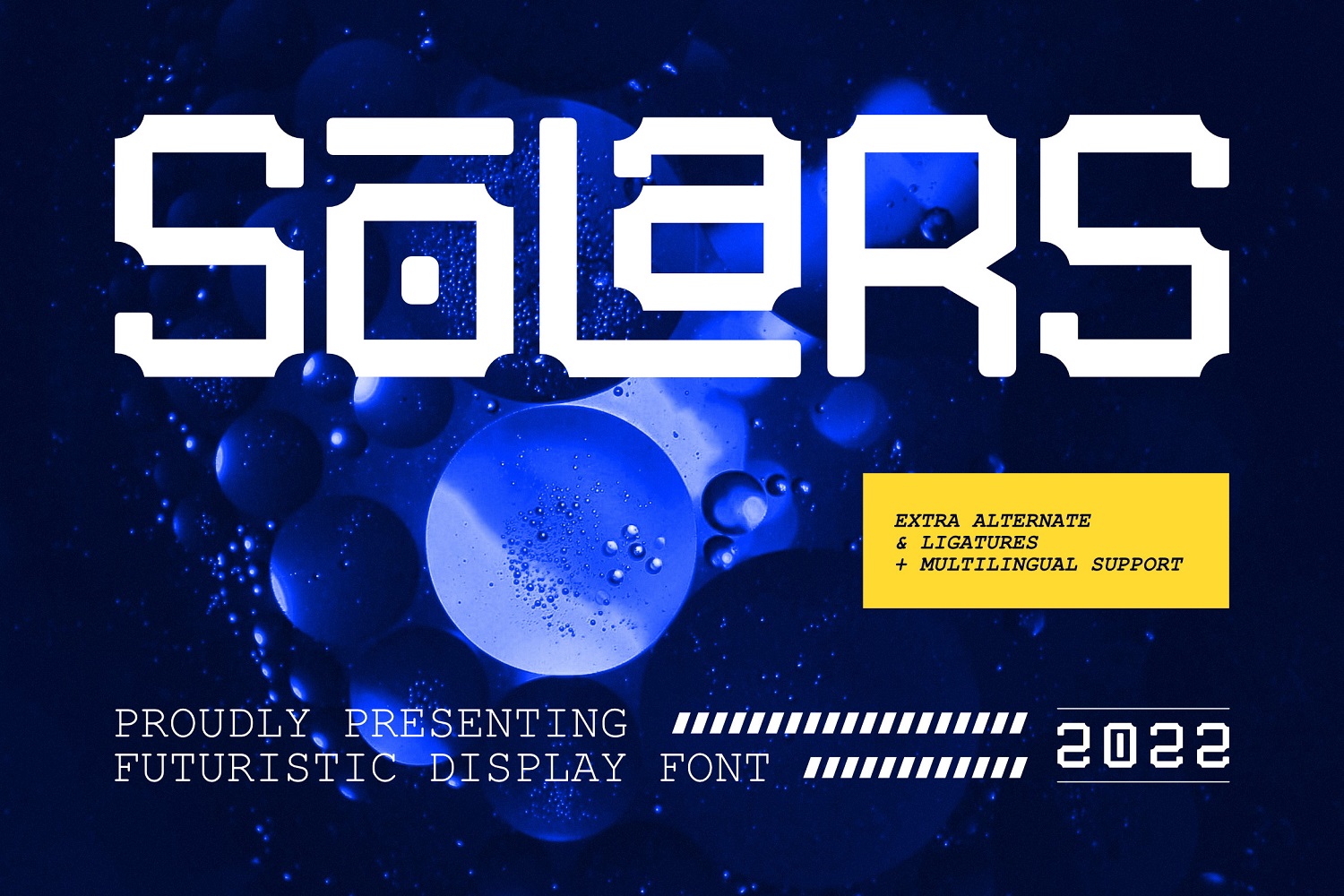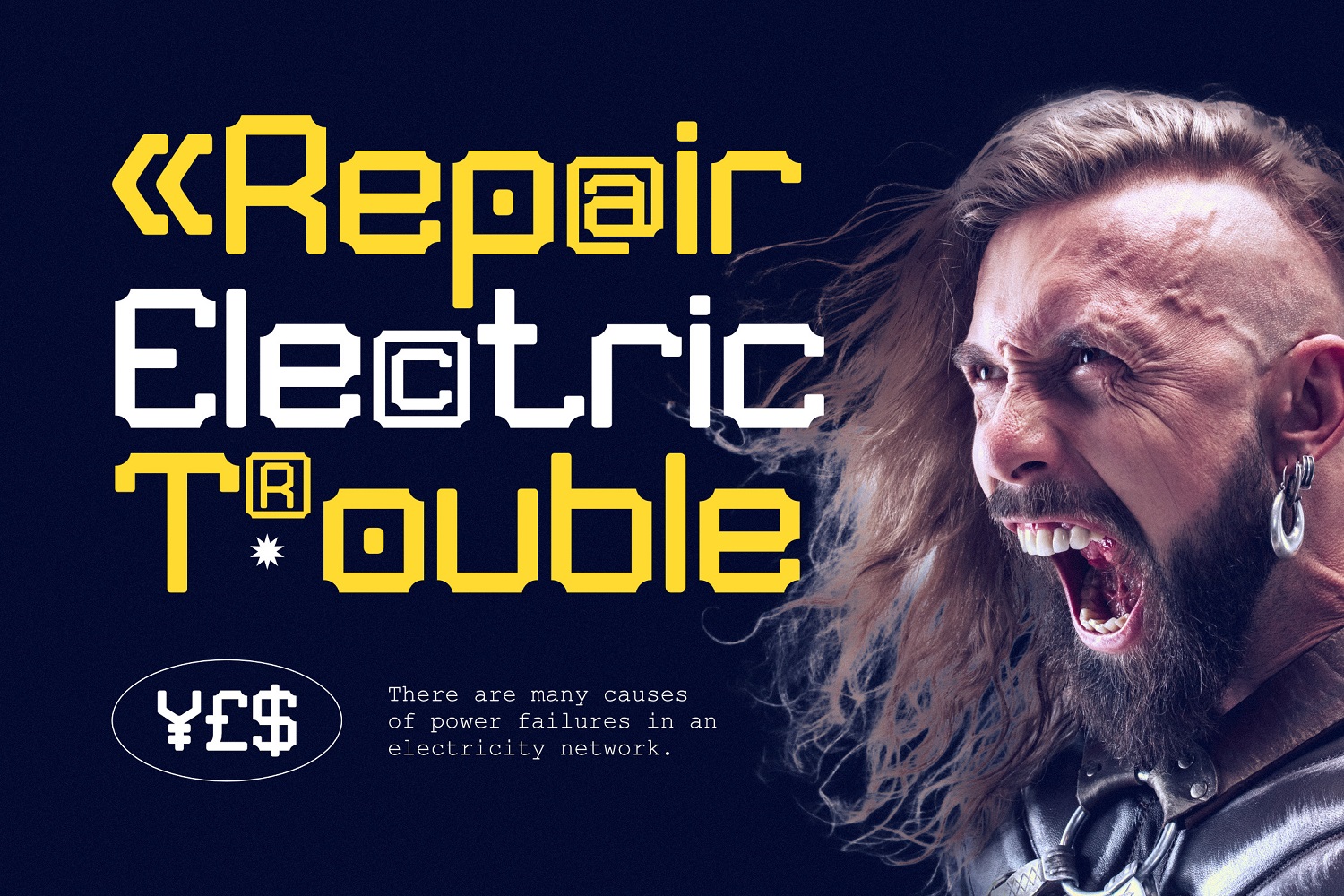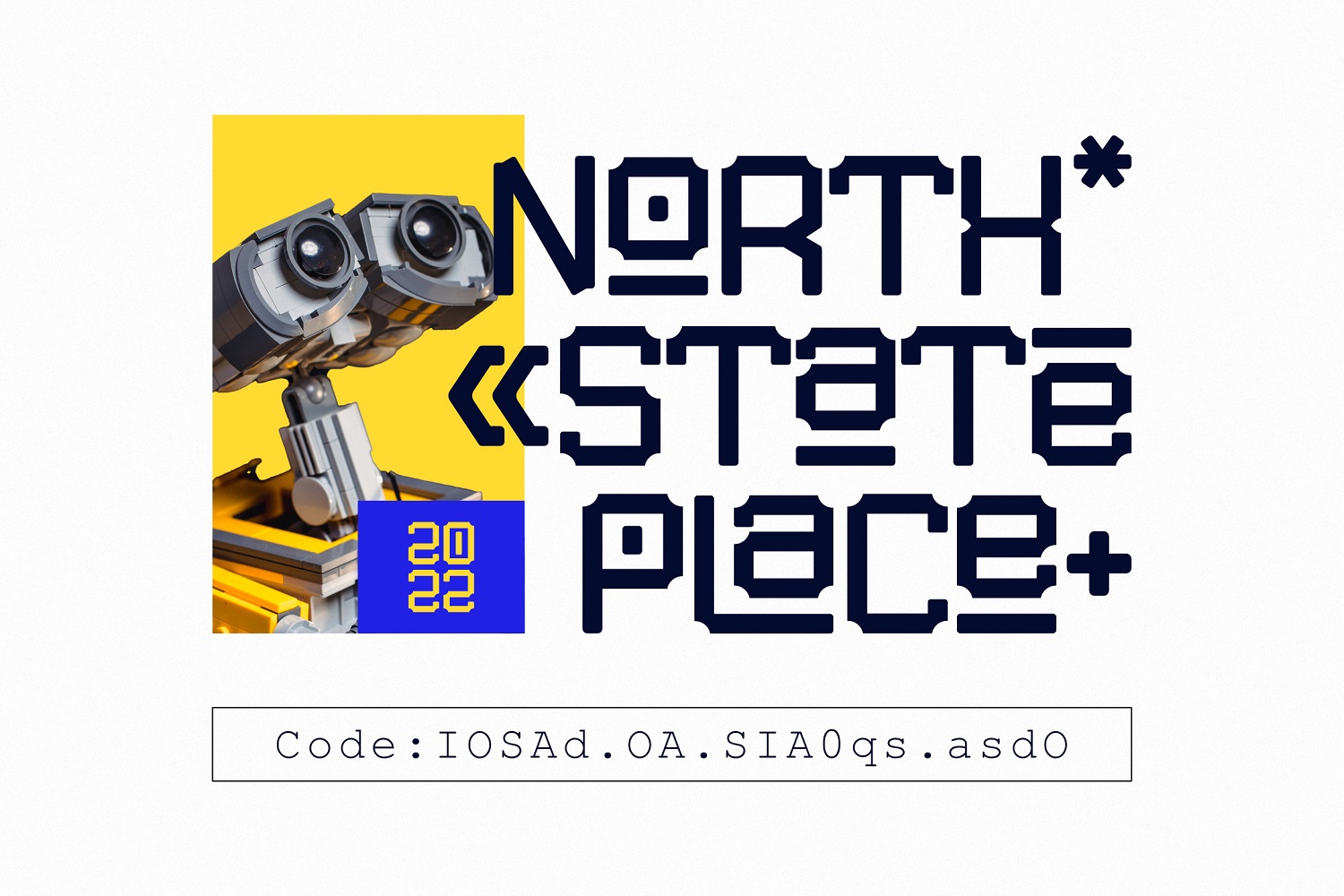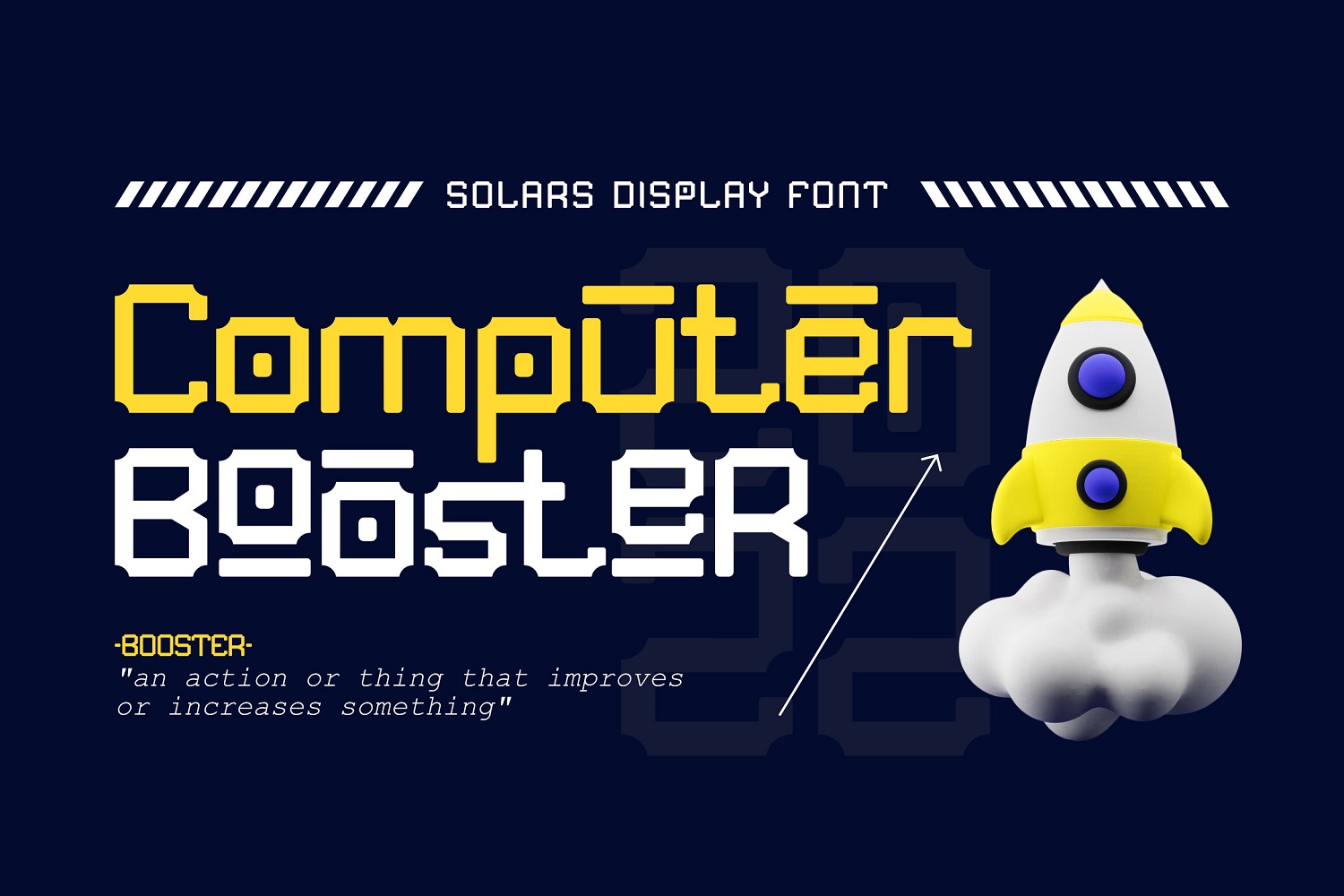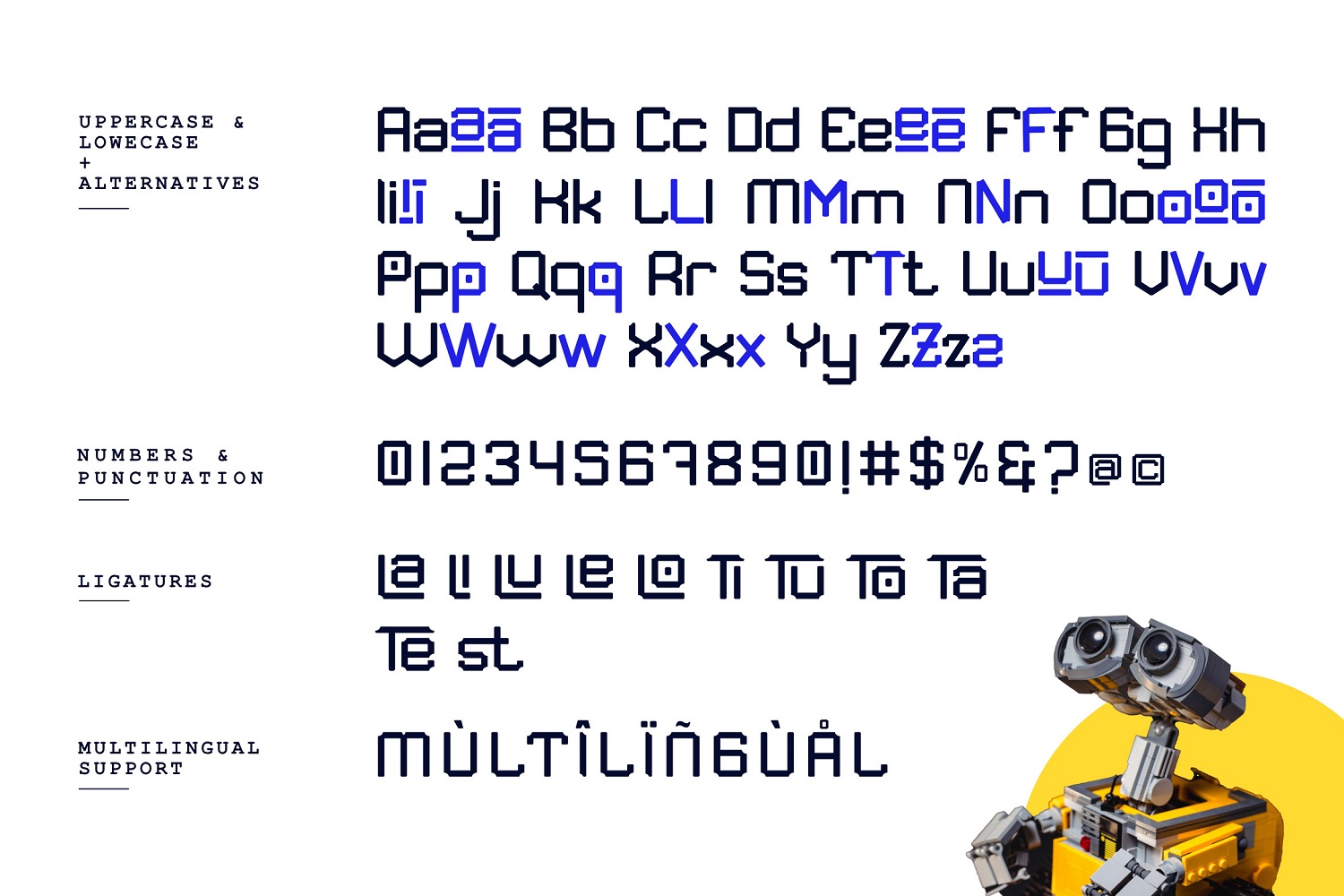
Solars is a futuristic display font that combines tech aesthetics with playful modularity. Its bold, squared-off letterforms with sharp corners and unique alternate glyphs give off a robotic, cyber-inspired vibe, perfect for projects that need a retro-futuristic or sci-fi theme. With a blend of clean edges and expressive ligatures, Solars brings energy and personality to headlines, posters, games, and digital branding.
Packed with uppercase, lowercase, alternate characters, ligatures, numbers, punctuation, and multilingual support, Solars is both functional and fun. Whether you’re creating an interface design, visual identity for a tech product, or a pop-culture merchandise concept, this font is a creative choice that’s ready for the future.
Solars